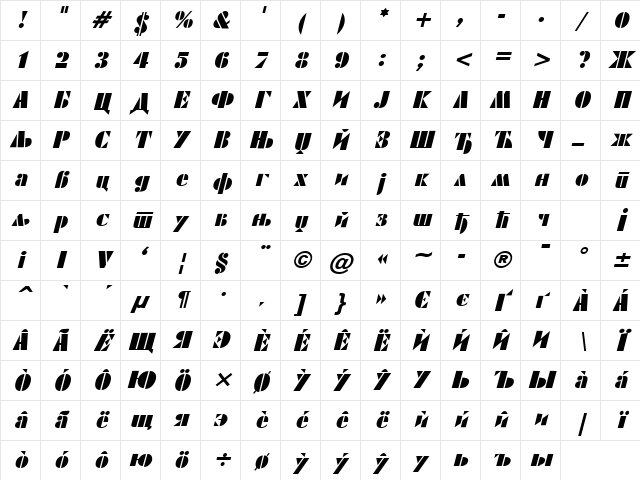
Cir FuturaCrazy Italic Free Font
Cir FuturaCrazy Italic
Design Context for Cir FuturaCrazy
Cir FuturaCrazy has a distinctly futuristic character, with geometric precision and clean angles that feel at home in technology, gaming, and sci-fi contexts. The slanted form adds forward momentum and visual energy.